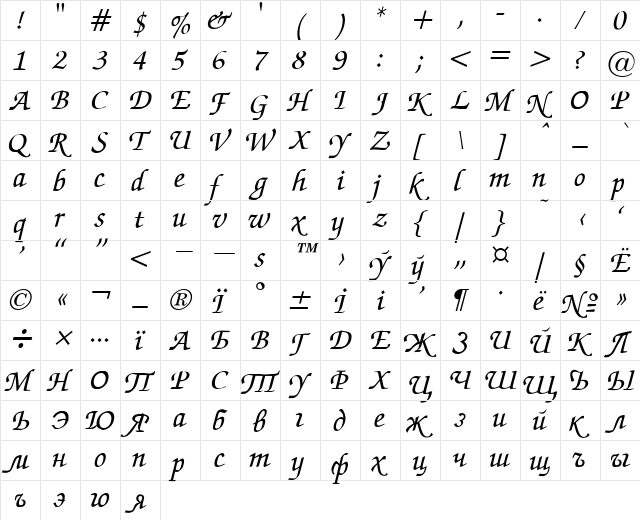
Zapf Russ Italic
Design Context for Zapf Russ Typeface
Zapf Russ is a composed and adaptable typeface that performs quietly and consistently across a wide range of design contexts. Its italic angle brings a sense of urgency and motion to the letterforms.